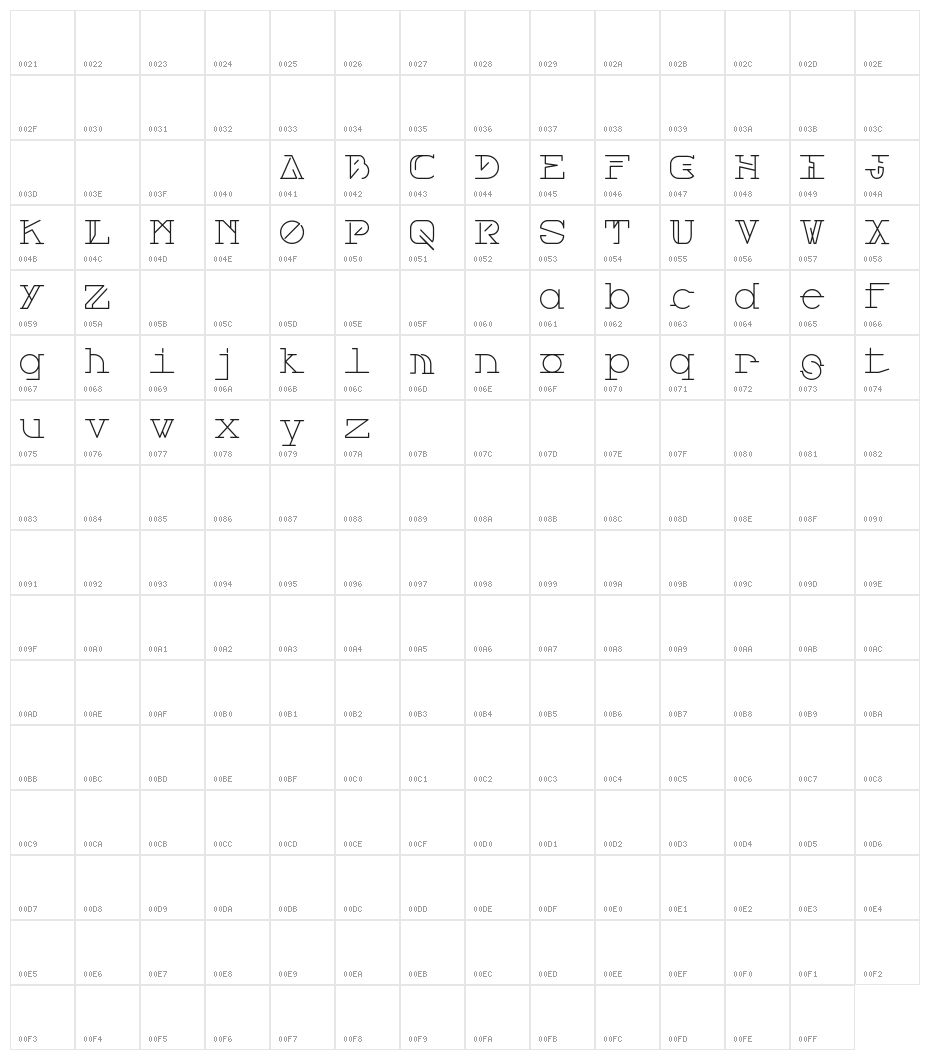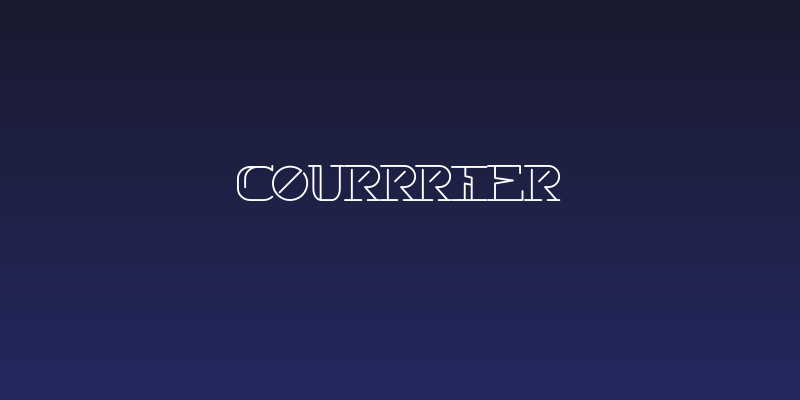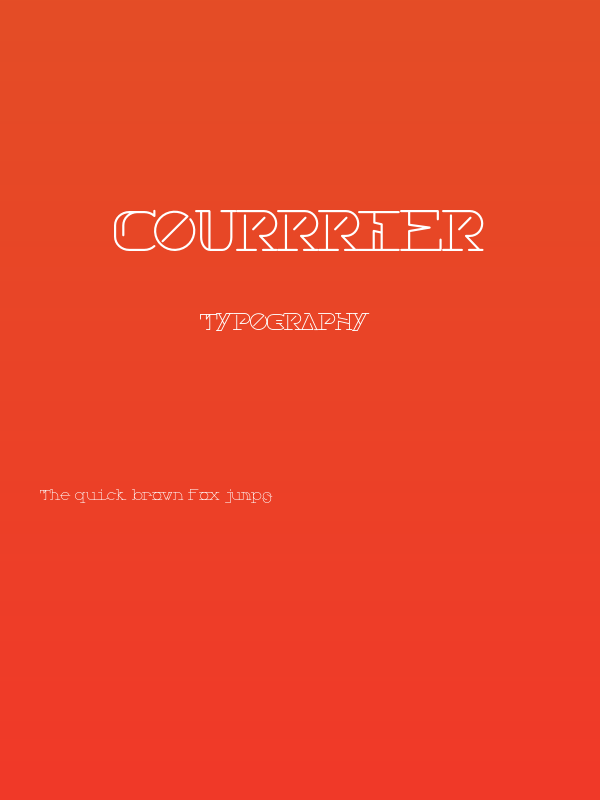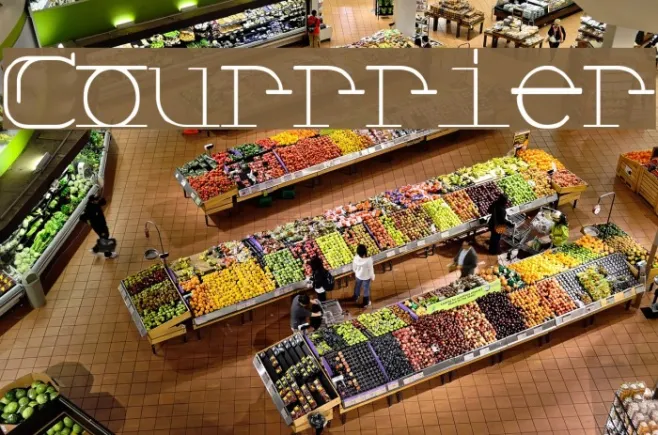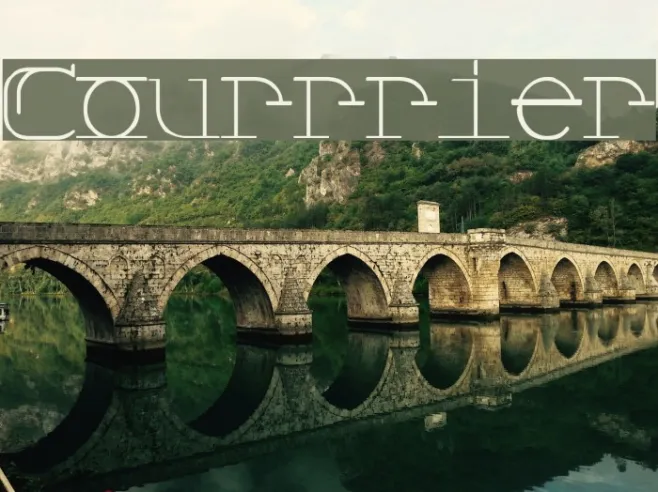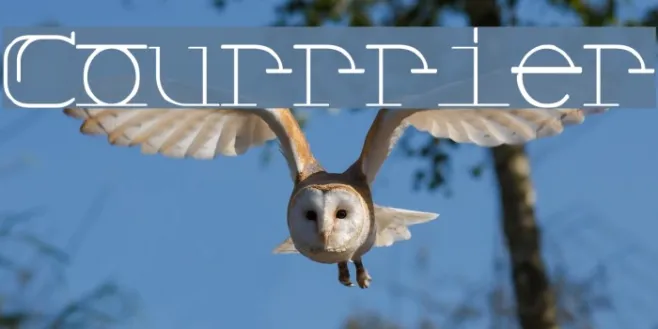
Courrrier Font
Courrrier Description
This font features a unique and modern design with a geometric and angular style. The uppercase letters are characterized by sharp edges and distinct shapes, creating a futuristic and technical appearance. The lowercase letters maintain a consistent design with a slightly more rounded approach, yet still retain the angular theme. The numerals and special characters follow the same design principles, ensuring a cohesive look across all characters. The font's structure is clean and precise, making it suitable for projects that require a contemporary and innovative touch.